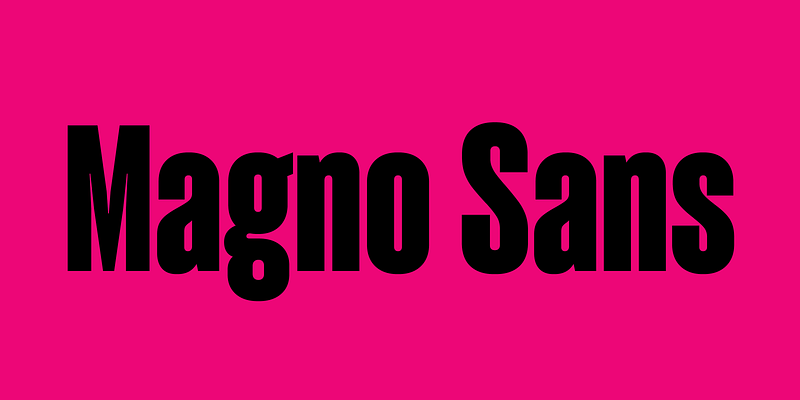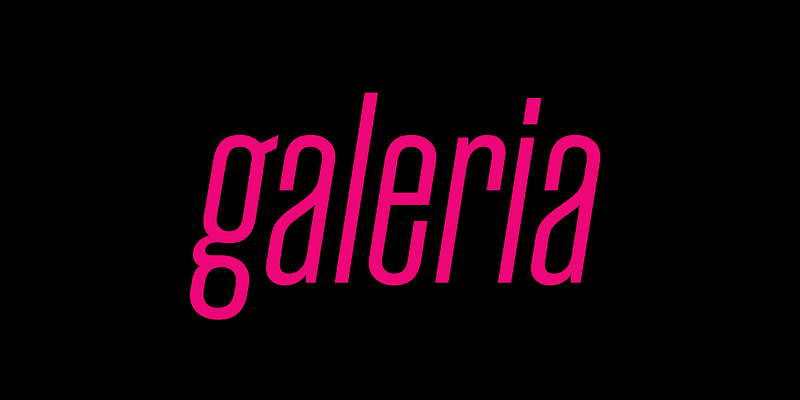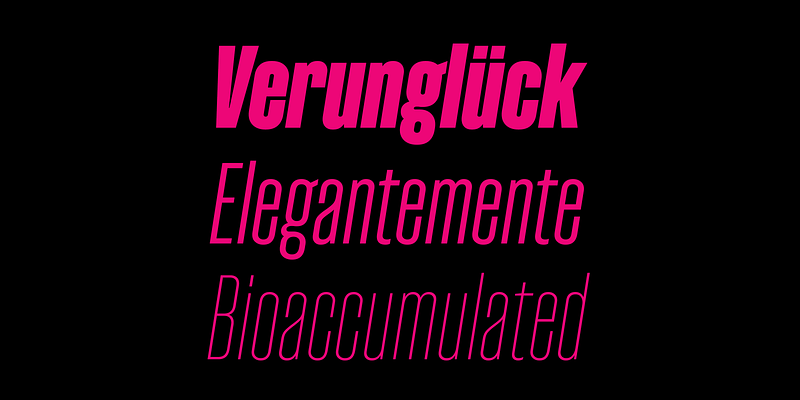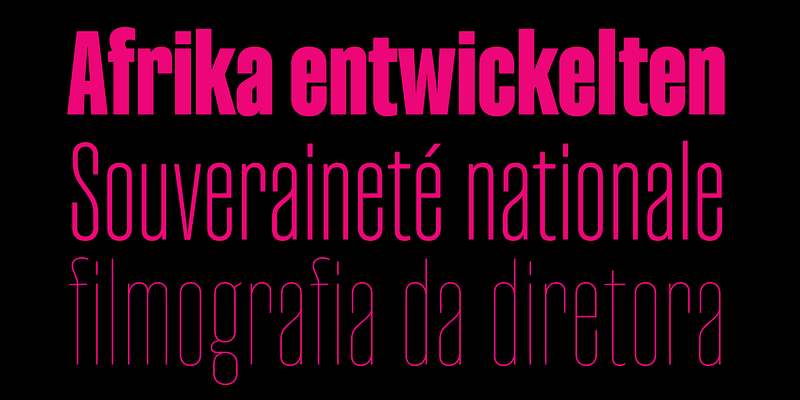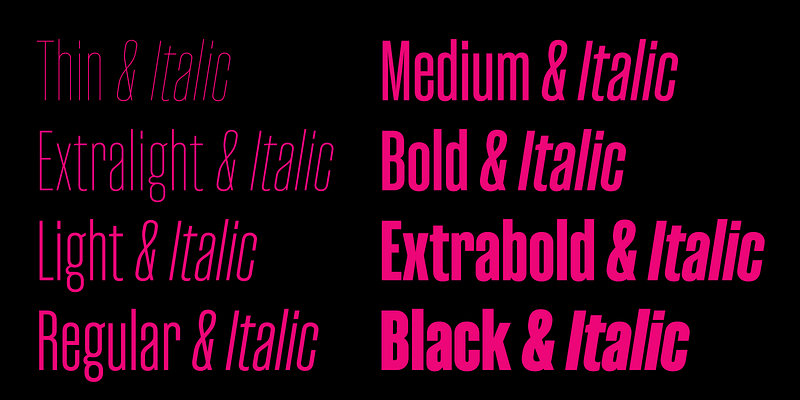
Magno began its life with a mysterious metal typeface as a reference: a “Memphis” found in Brazil that was never a real Memphis. Along the way, though, this condensed family became a whole new thing, far from a revival. It ended up with 8 weights for every version (serif and sans), plus obliques, a large latin character set covering over 200 languages, and a considerable amount of OpenType Features including sets of numbers, fractions, small caps, superiors and inferiors, arrows, quite a few alternates, and even a unicase stylistic set. It’s special care for the visual mass and consistency through the wide range of weights makes it a good display option for impactful messages.